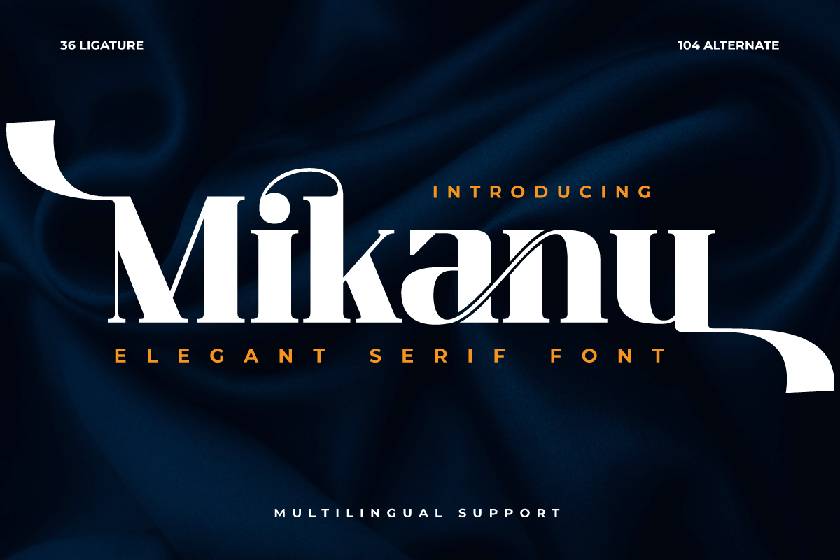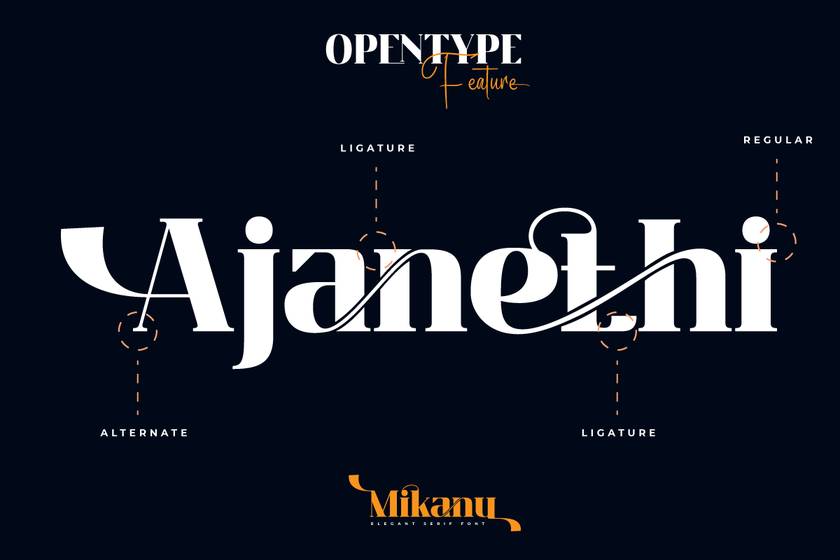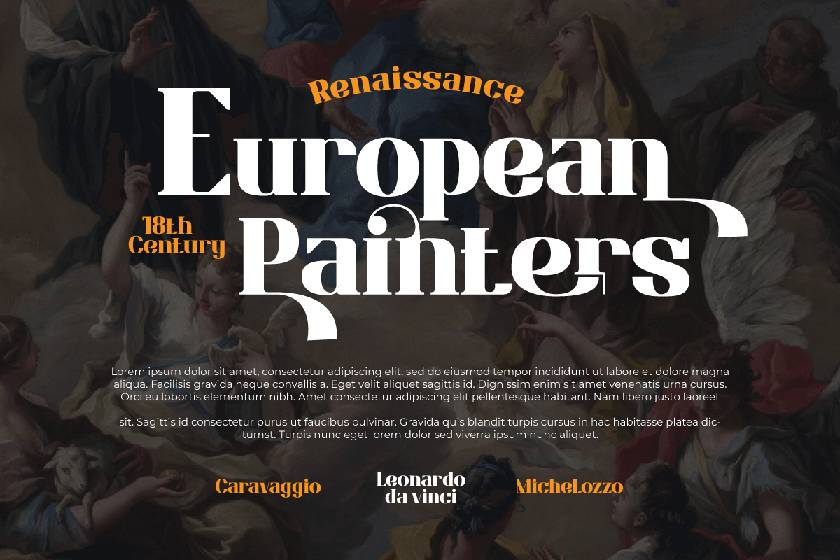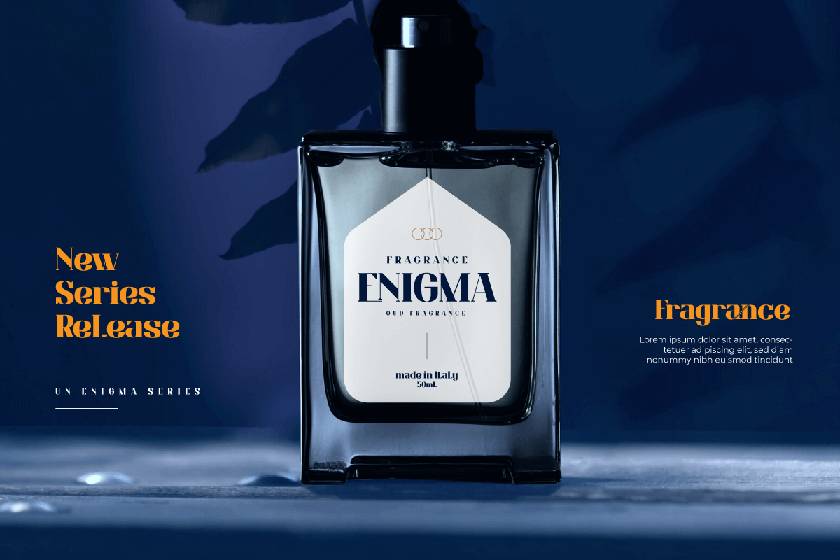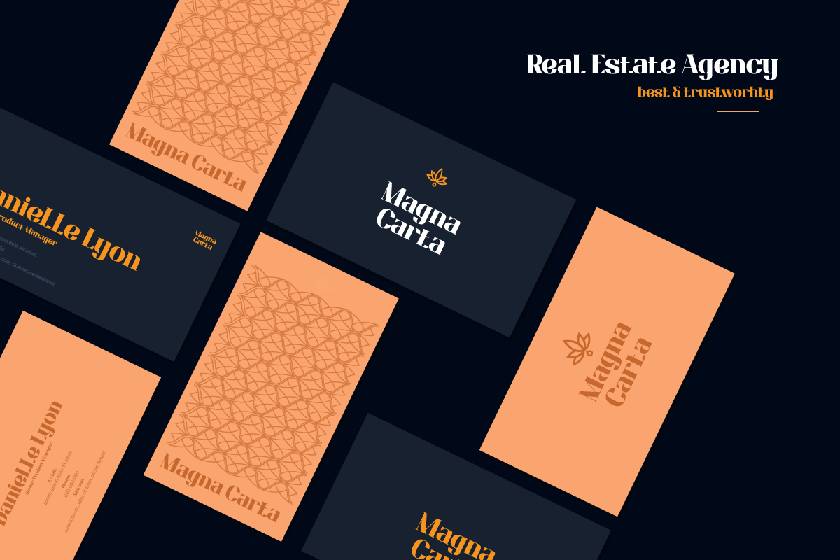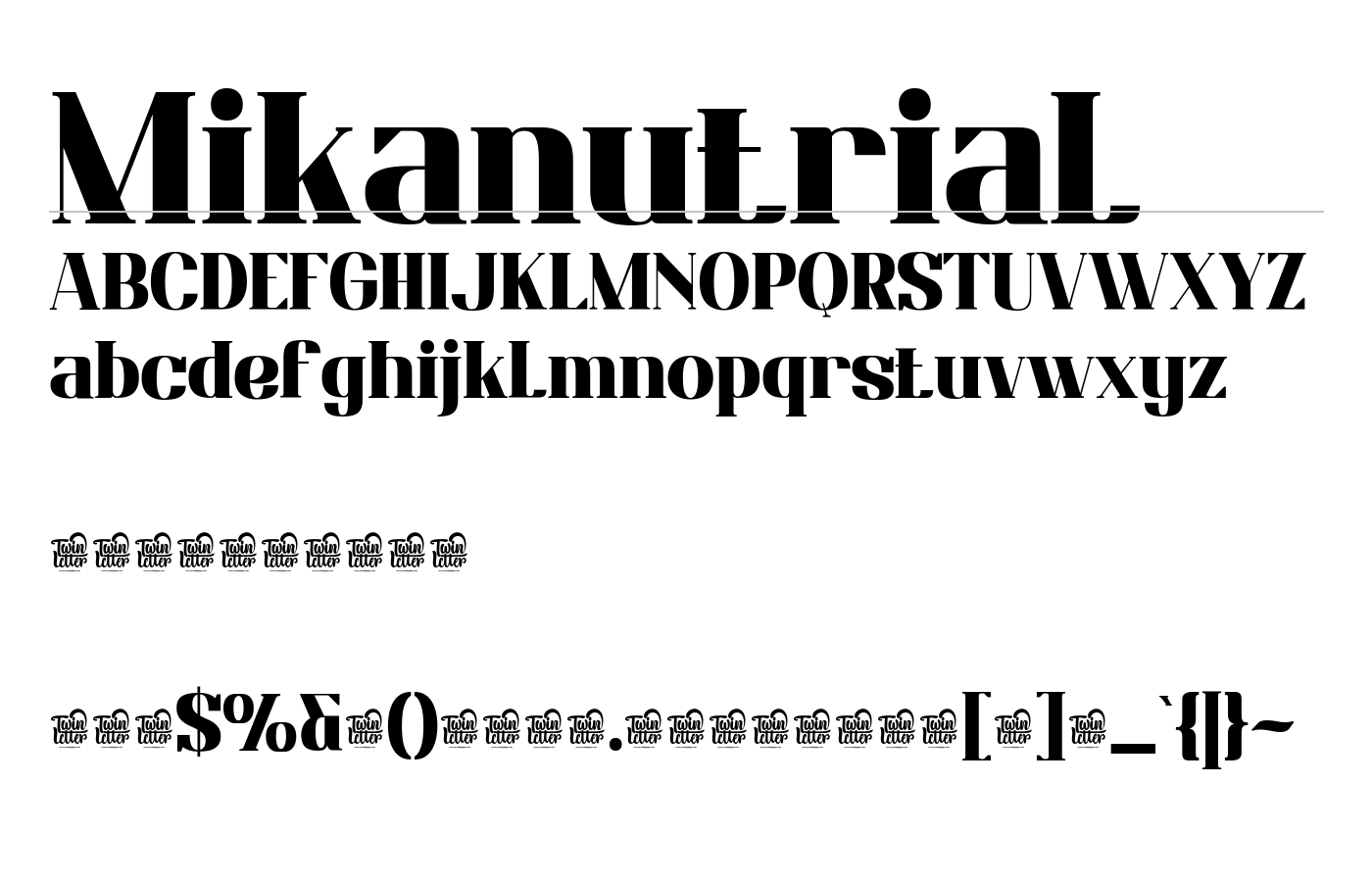
Mikanu is a bold serif font with high contrast between thick and thin strokes, featuring elegant bracketed serifs and a tall x-height that commands attention. Its sophisticated yet strong letterforms, including distinctive single-story characters and sharp details, make it ideal for luxury branding, editorial headlines, and stylish packaging where a refined, modern vintage feel is desired. This font blends classic elegance with contemporary impact, perfect for designs aiming to impress with confidence and flair.
Mikanu Font
About Mikanu Font